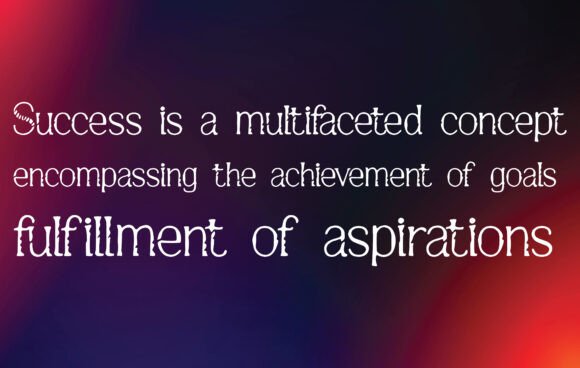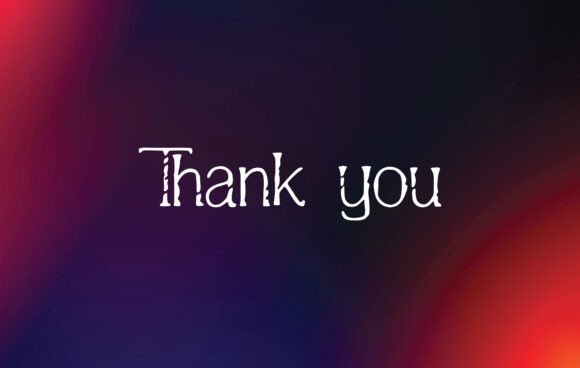
Discover the Versatility of Andrea Font: Elevate Your Designs to New Heights
In the world of typography, a great font can make all the difference in taking your creative projects to the next level. If you’re a designer, crafter, or simply someone who loves to dabble in creative endeavors, you’re likely always on the lookout for the perfect font to bring your ideas to life. That’s where Andrea Font comes in – a stunning, versatile typeface designed to help you create breathtaking designs that capture attention and inspire imagination.
A Font Designed for Creativity
Andrea Font is crafted with the intention of being a true favorite among designers and crafters alike. Its design focuses on legibility and aesthetic appeal, making it an excellent choice for a wide range of applications. Whether you’re working on magazine headlines, t-shirts, social media graphics, branding materials, wedding invitations, or greeting cards, this font is poised to become your go-to choice.
Key Features of Andrea Font
- Legibility: One of the standout features of Andrea Font is its exceptional legibility. This ensures that your message is conveyed clearly, whether it’s used as a title or body text.
- Versatility: Andrea Font’s design is versatile enough to fit into numerous design contexts. Its unique yet approachable style makes it suitable for both digital and print projects.
- Aesthetic Appeal: With its elegant and clean lines, Andrea Font adds a touch of sophistication to any design. It’s perfect for creating visually appealing content that stands out.
Applications of Andrea Font
The possibilities are endless with Andrea Font. Here are some of the many ways you can utilize this fantastic font:
- Magazine Headlines: Create eye-catching titles that draw readers in. Andrea Font’s stylish and legible design makes it ideal for magazine covers, article titles, and section headings.
- T-Shirts and Merchandise: Add a professional touch to your apparel designs. The font’s clarity and style ensure that your message or logo looks great on any product.
- Social Media Graphics: Elevate your social media presence with graphics that pop. Andrea Font can help you create engaging posts, stories, and banners that capture attention.
- Branding: Establish a strong brand identity with custom typography. Andrea Font’s unique style can help your brand stand out and be memorable.
- Wedding Invitations and Cards: Add an elegant touch to your wedding invitations, greeting cards, and other stationery. The font’s sophisticated look makes it perfect for special occasions.
Why Choose Andrea Font?
With so many fonts available, why should Andrea Font be your top choice? The answer lies in its balanced design, which combines elegance with readability. This makes it incredibly versatile, allowing you to use it across various projects without worrying about it looking out of place.
Moreover, Andrea Font is designed to inspire creativity. Its unique style encourages designers to experiment with different layouts, colors, and design elements, leading to the creation of truly original and captivating designs.
Andrea Font is more than just a typeface – it’s a tool for creativity, designed to help you bring your ideas to life in the most visually appealing way possible. Its legibility, versatility, and aesthetic appeal make it an invaluable asset for designers and crafters looking to elevate their projects.